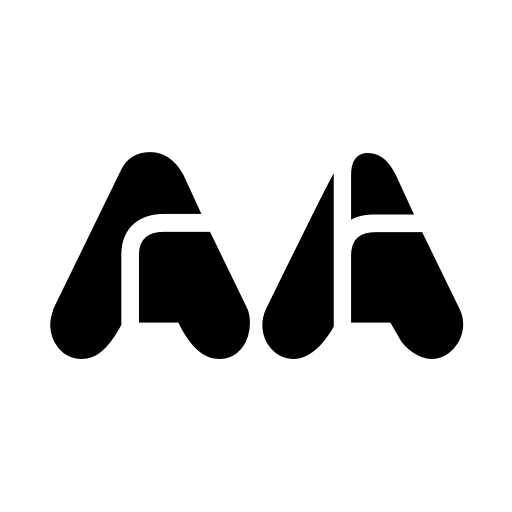
BlackBees is a bold, futuristic sans serif font with a strong geometric design featuring striking cut-out segments that create a dynamic, stencil-like effect. Its heavy weight and condensed width make it ideal for eye-catching headlines, logos, and branding projects that seek a modern, edgy, and tech-inspired look. This font works best where a distinct and memorable style is needed to stand out, such as in posters, packaging, and digital media.
BlackBees Font
About BlackBees Font